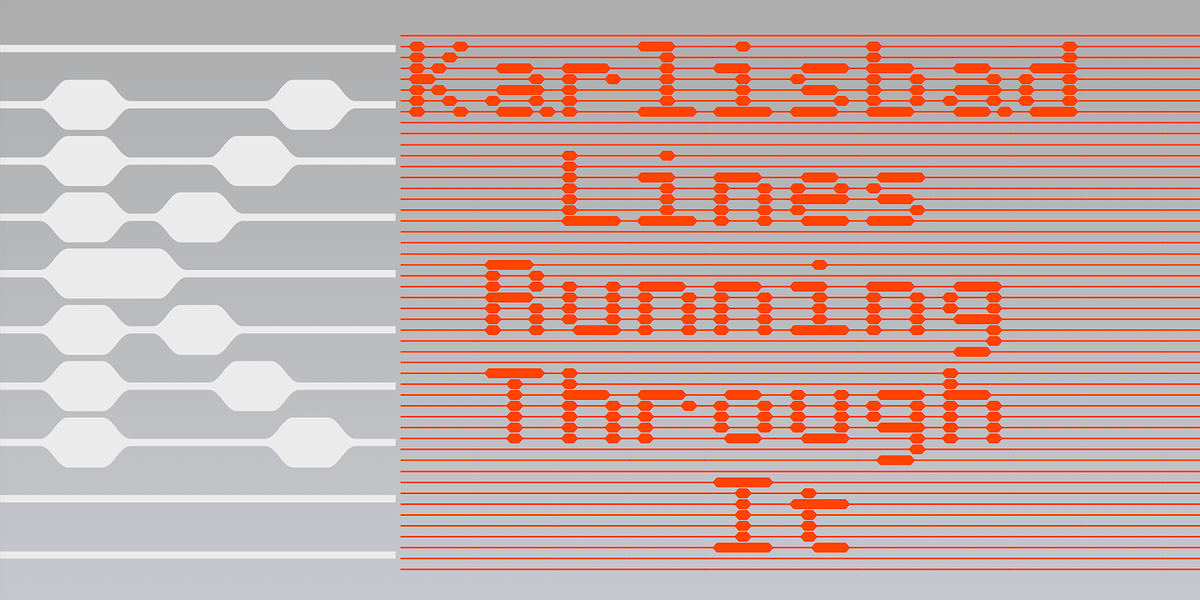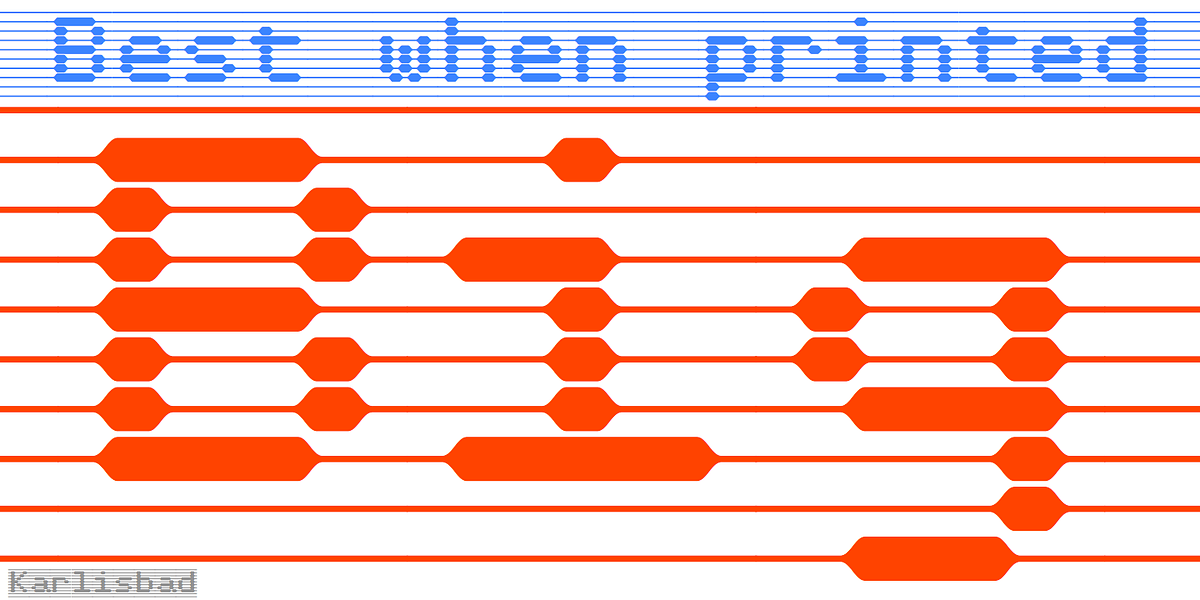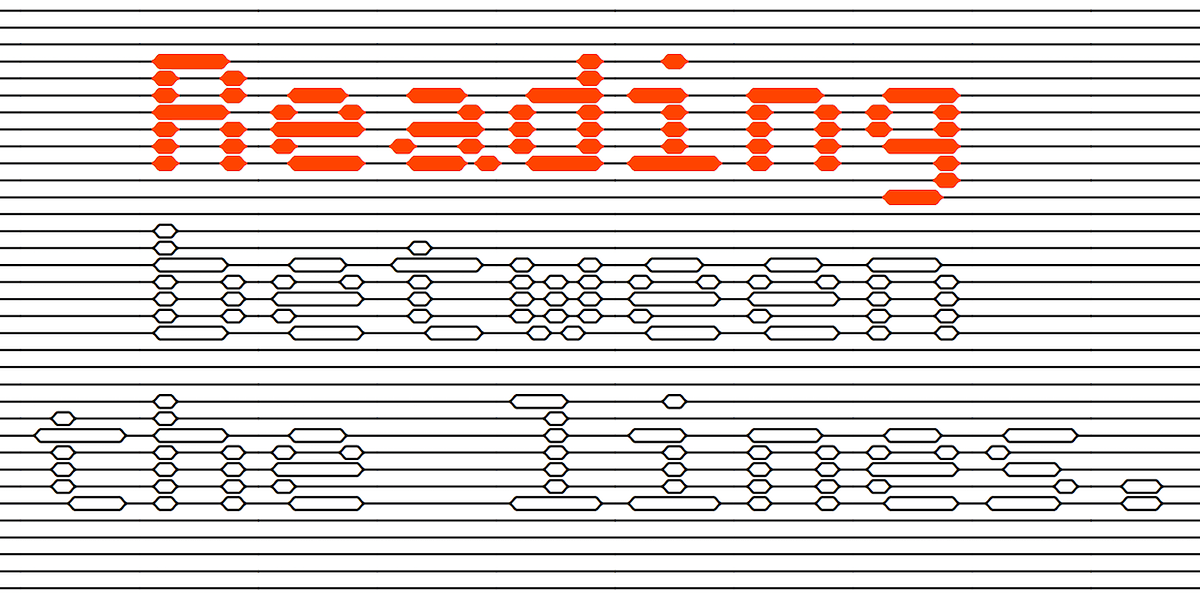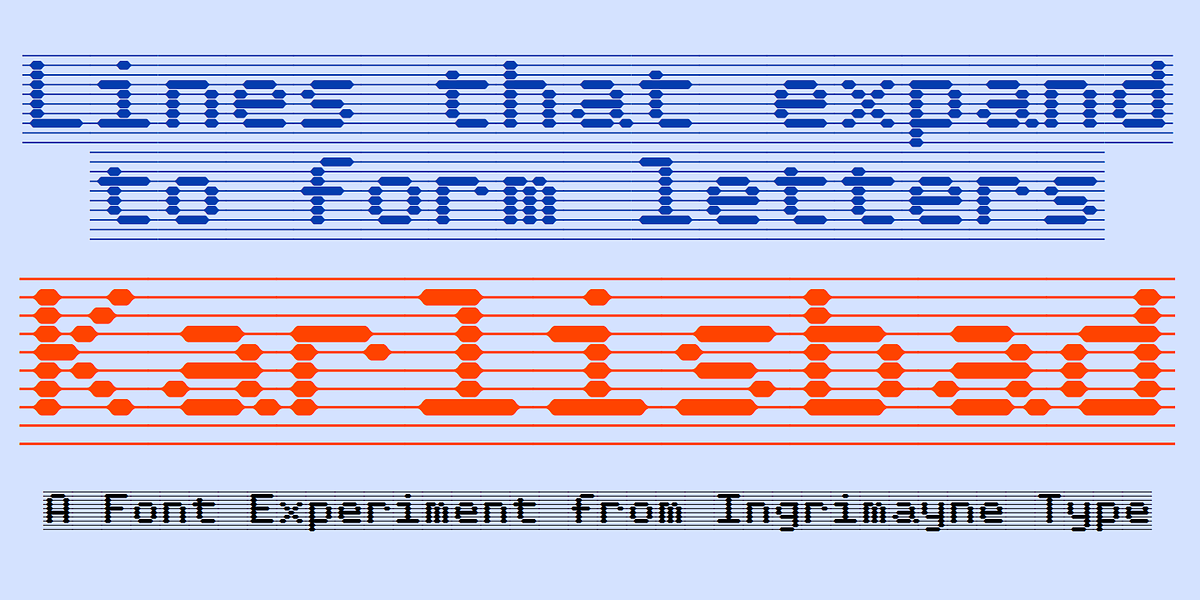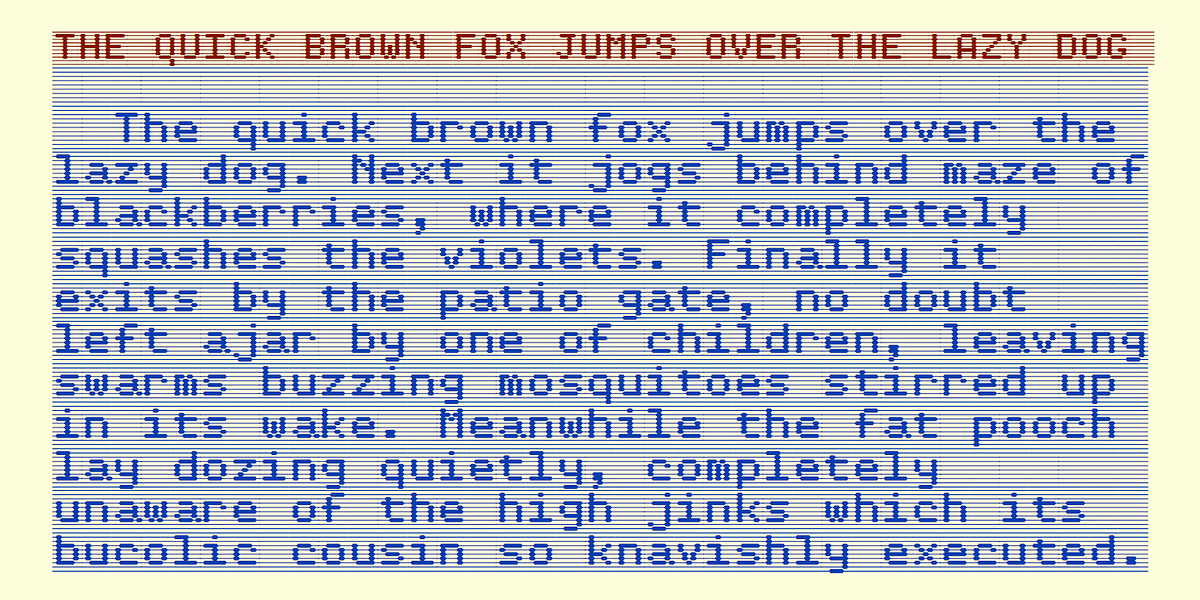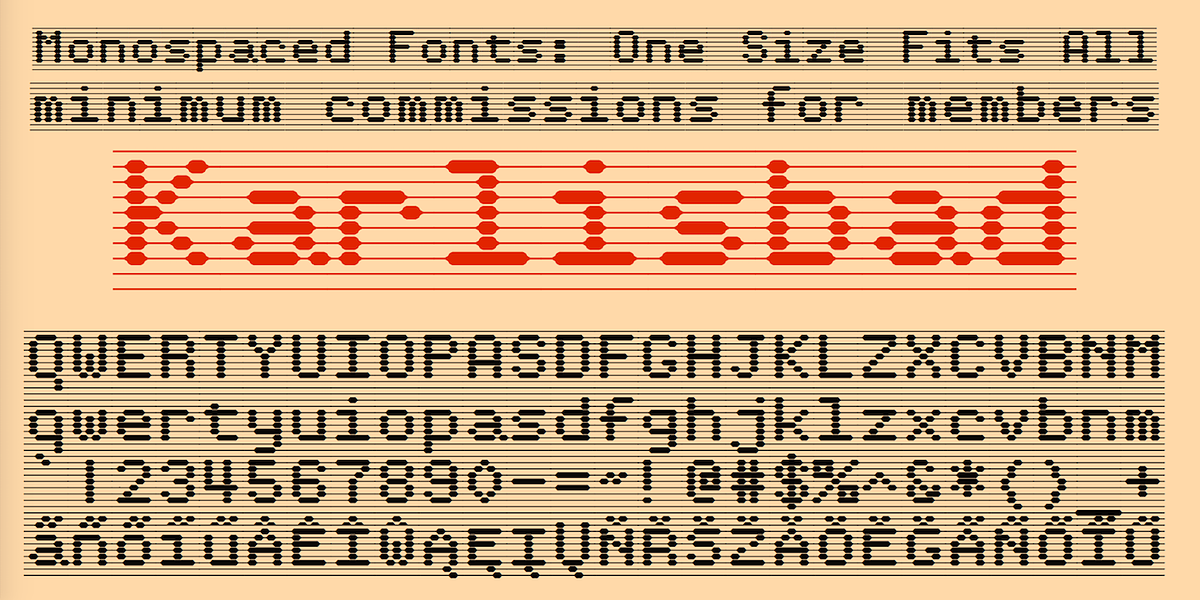
Karlisbad
Karlisbad is a distinctive pixel font characterized by its monospaced structure and innovative multilinear design. The lines that compose the letters can be expanded or contracted, allowing for creative effects like outlining, hollow-letter styling, or contrasting colors between the letterforms and their outlines.